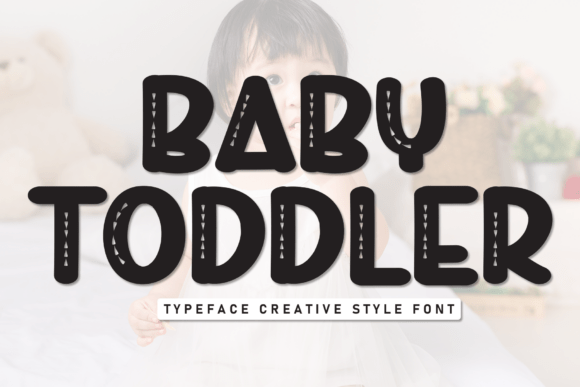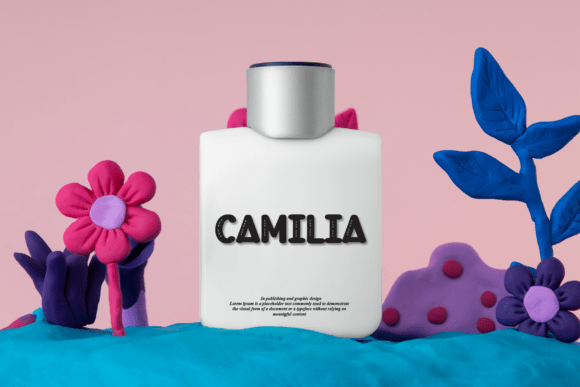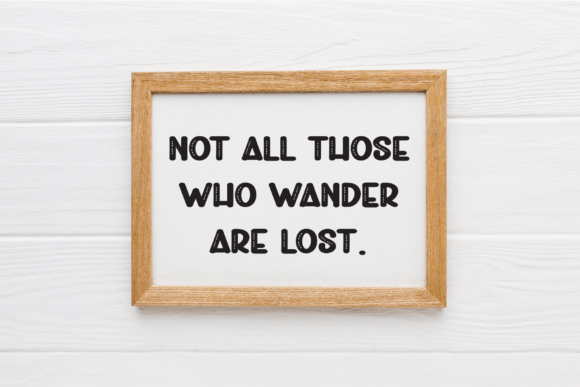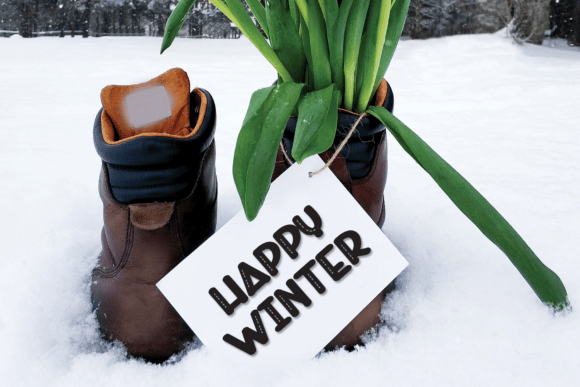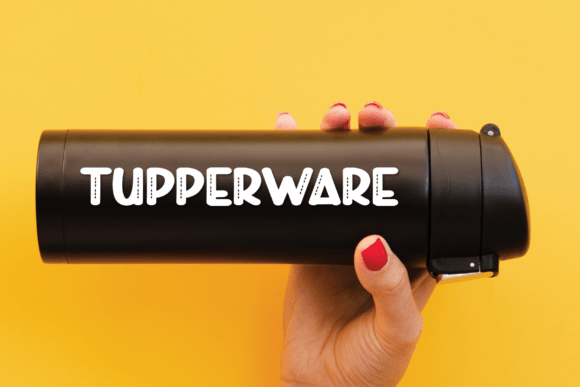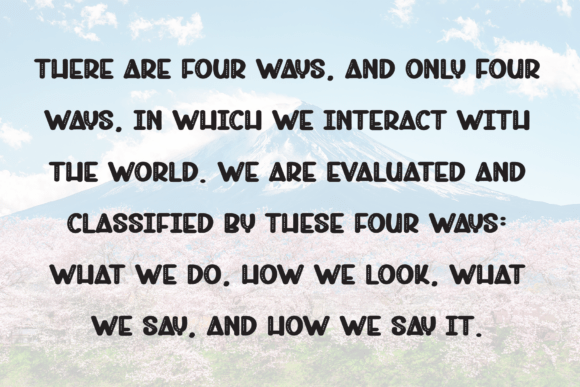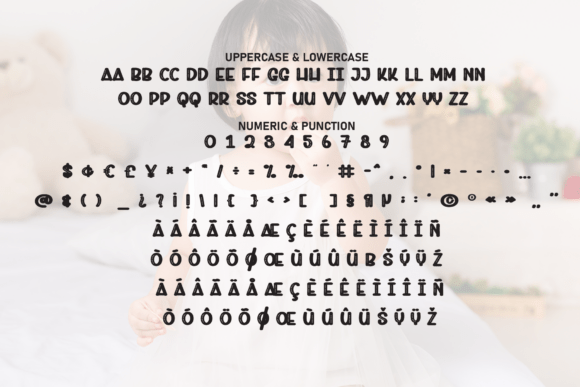
Unleashing Whimsy in Design
Who hasn’t felt the rush of excitement when designing something special – a wedding invitation, a birthday card, or even a simple social media post? The moment when the perfect font comes along and elevates your creation to the next level is truly magical.
That’s exactly what the Baby Toddler Font does. This delightful handwritten display font is designed to bring a smile to your face and a touch of playfulness to your designs. With its cute, charming strokes, it’s perfect for adding a sense of fun and brightness to any project. Whether you’re a designer looking to create something unique or simply someone who wants to make a lasting impression, the Baby Toddler Font is a valuable addition to your creative arsenal.
Baby Toddler Font Key Features
- Unique Characteristic: Designed specifically for young children’s names, this font is playful, yet easy to read, making it perfect for baby announcements, nursery decor, and other kid-related projects.
- Style Options: Available in both uppercase and lowercase letters, as well as with and without ligatures, providing designers with a range of creative possibilities.
Baby Toddler Font Review
I recently had the chance to work with the “Baby Toddler Font” and I have to say, it’s a unique and interesting choice for any design project. Here are my honest thoughts on what works well and what doesn’t.
- The font is playful and perfect for any design that needs to convey a sense of youth and innocence. It’s ideal for children’s books, nursery decor, and other projects that require a sweet and endearing tone.
- The font may be too cutesy for some projects, which could detract from the overall design. If you’re working on a project that requires a more serious tone, this font may not be the best choice.
- The font is not ideal for large blocks of text, as it can become overwhelming and difficult to read.
- The font is not available in as many weights and styles as some other popular fonts, which could limit its versatility.
Overall, I think the “Baby Toddler Font” is a fun and creative choice for the right project. While it may have some limitations, it’s perfect for designs that need to convey a sense of playfulness and innocence. Just be sure to use it judiciously and in moderation.
The Baby Toddler Font is ideal for creating playful and child-friendly designs. Common use cases include:
– Children’s book covers and illustrations
– Party invitations and decorations
– Educational materials and worksheets
– Social media graphics and ads
– Use the font in combination with bright colors and playful graphics to create a lively atmosphere.
– Experiment with different font sizes and styles to create visual interest.
– Consider using the font in conjunction with other child-friendly fonts for a cohesive look.
Alternatives to Baby Toddler Font
Great Vibes Font is a beautiful, elegant script font that is perfect for creating a whimsical and playful atmosphere. It is ideal for use in branding, advertising, and editorial design. Great Vibes Font has a similar hand-drawn feel to Baby Toddler Font but with a more refined and sophisticated look.
Lato Font is a modern sans-serif font that is highly legible and versatile. It is suitable for use in a wide range of applications, from body text to headings. Compared to Baby Toddler Font, Lato Font has a more straightforward and minimalist design, making it a great choice for designs that require a clean and simple aesthetic.